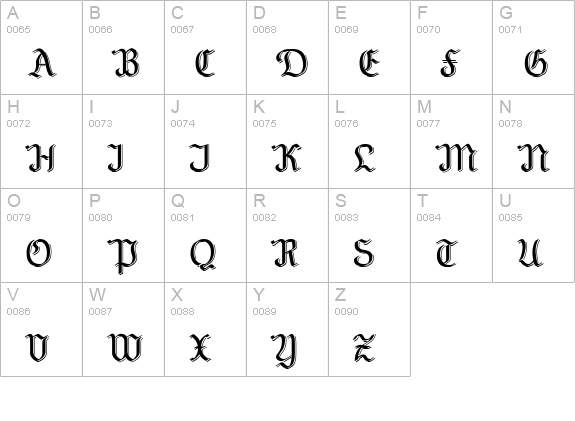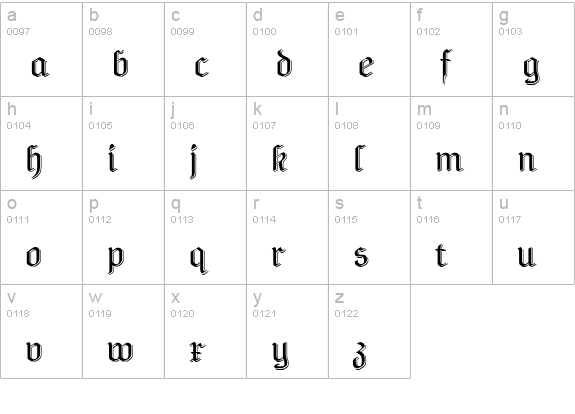
NeuAltischShadow Font Details
NeuAltischShadow is a striking and versatile display font that exudes a perfect blend of modernity and classic elegance. With its sharp lines and unique shadow effect, this font is sure to make your designs stand out. Whether you're working on a branding project, poster design, or any other creative endeavor, NeuAltischShadow will add a touch of sophistication and style. What's even better is that NeuAltischShadow is available for free download at FontsMarket.com. Yes, you read that right - this stunning font is completely free for you to use in your personal and commercial projects. Don't miss out on the opportunity to enhance your designs with the timeless appeal of NeuAltischShadow. Download it now and let your creativity shine!